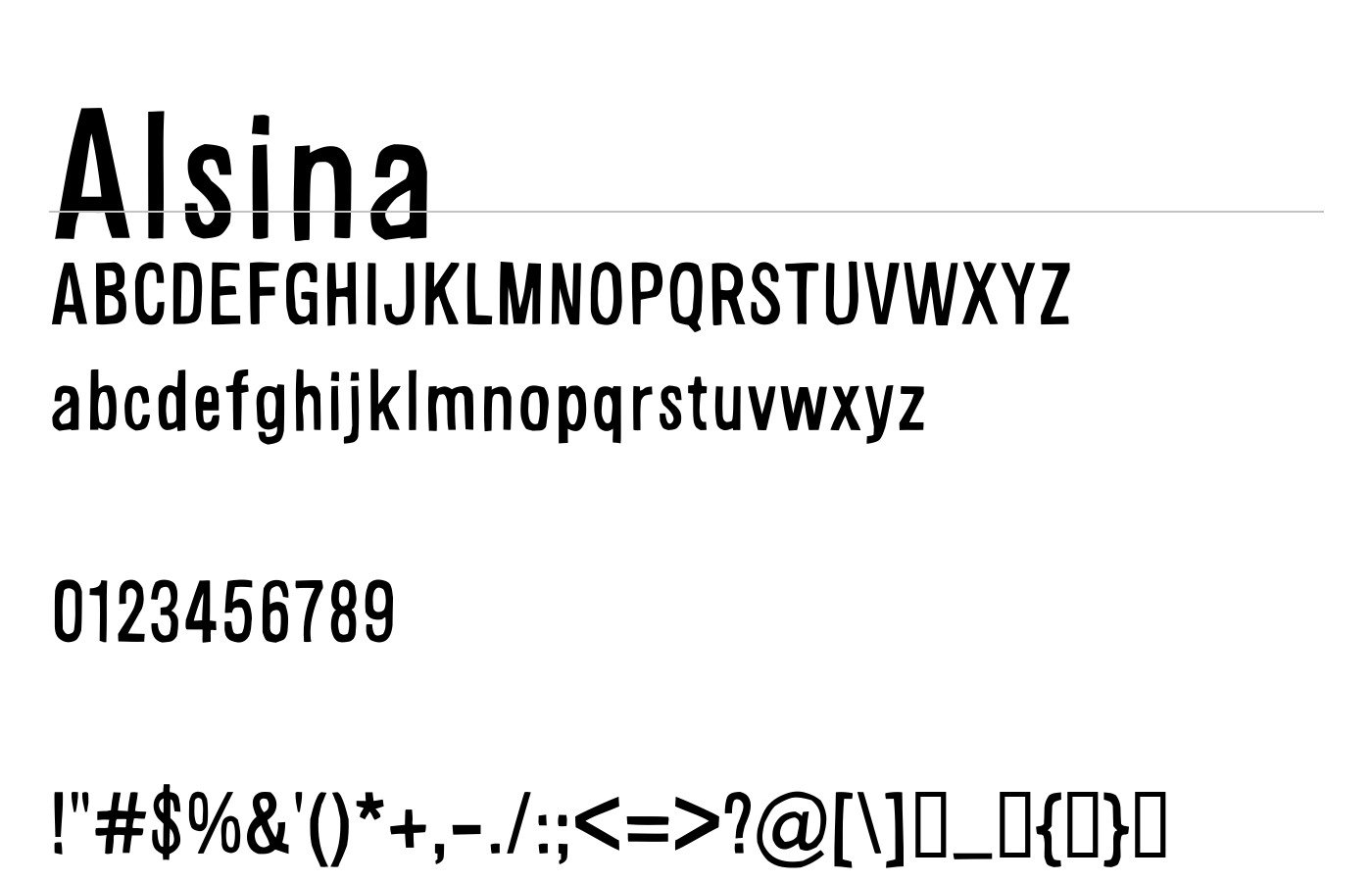
Alsina is a narrow, tall sans serif font with a quirky, slightly irregular style that adds personality and charm. Its consistent weight and clean lines make it modern and easy to read, while the subtle unevenness gives it a friendly, playful feel ideal for headlines, logos, and creative branding that wants to stand out with a casual yet stylish look. This font works well for projects needing a unique, approachable vibe without sacrificing clarity and professionalism.
Alsina Font
About Alsina Font